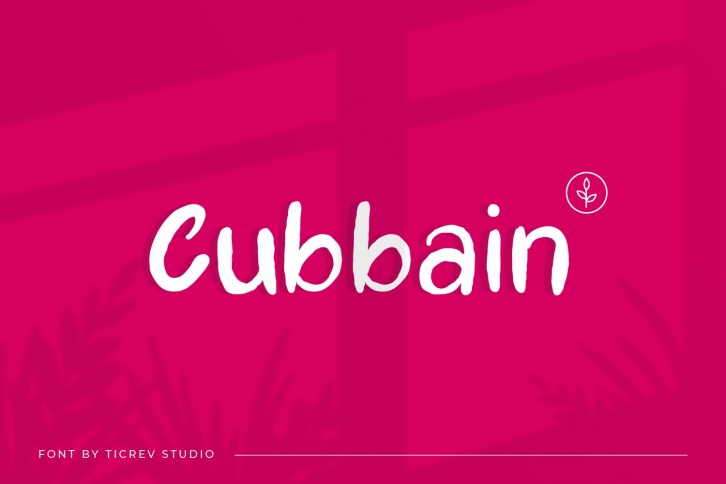
Cubbain-Handwritten Display Font Download
Cubbain-Handwritten Display is a beautiful font that was designed by titik creative. It's a great choice for designers and creatives who need such a font. It was released on September 8, 2020 and the file size is 6.82 MB. Cubbain-Handwritten Display may give a more youthful, expressive and casual look to your project. It is a very beautiful, refined, elegant, and high-quality font.